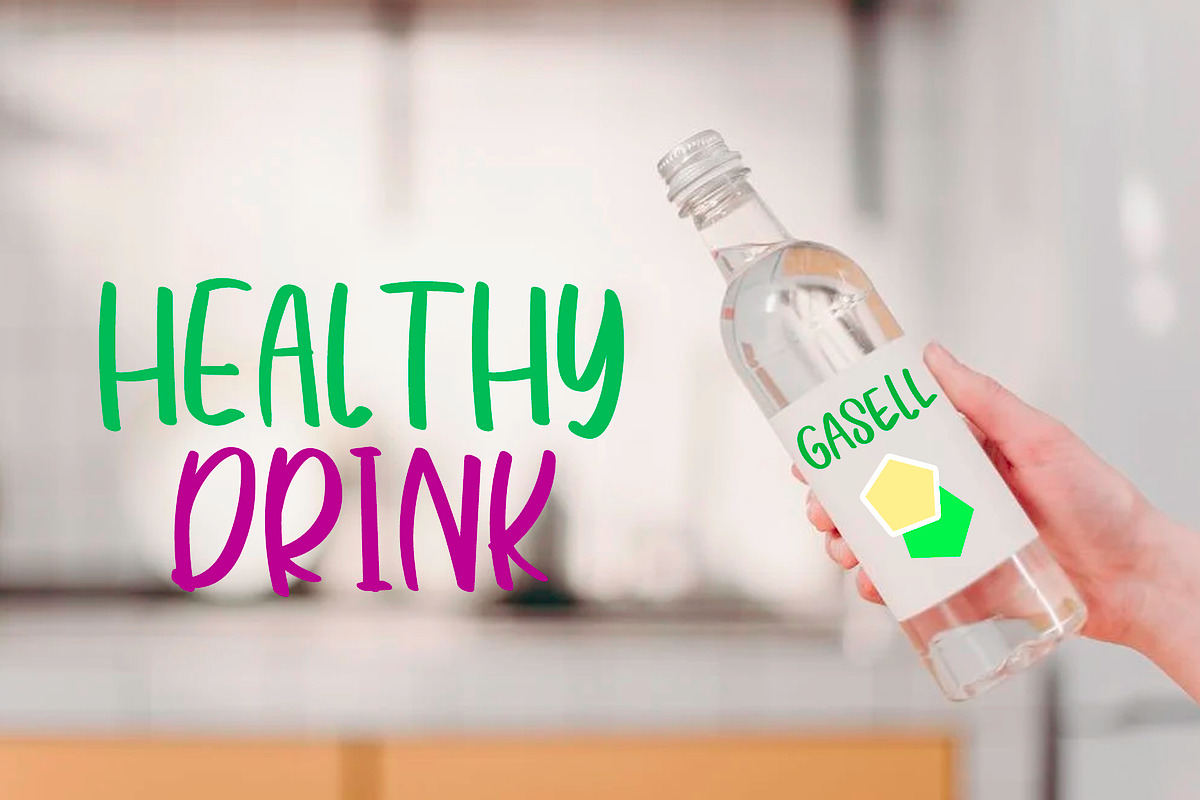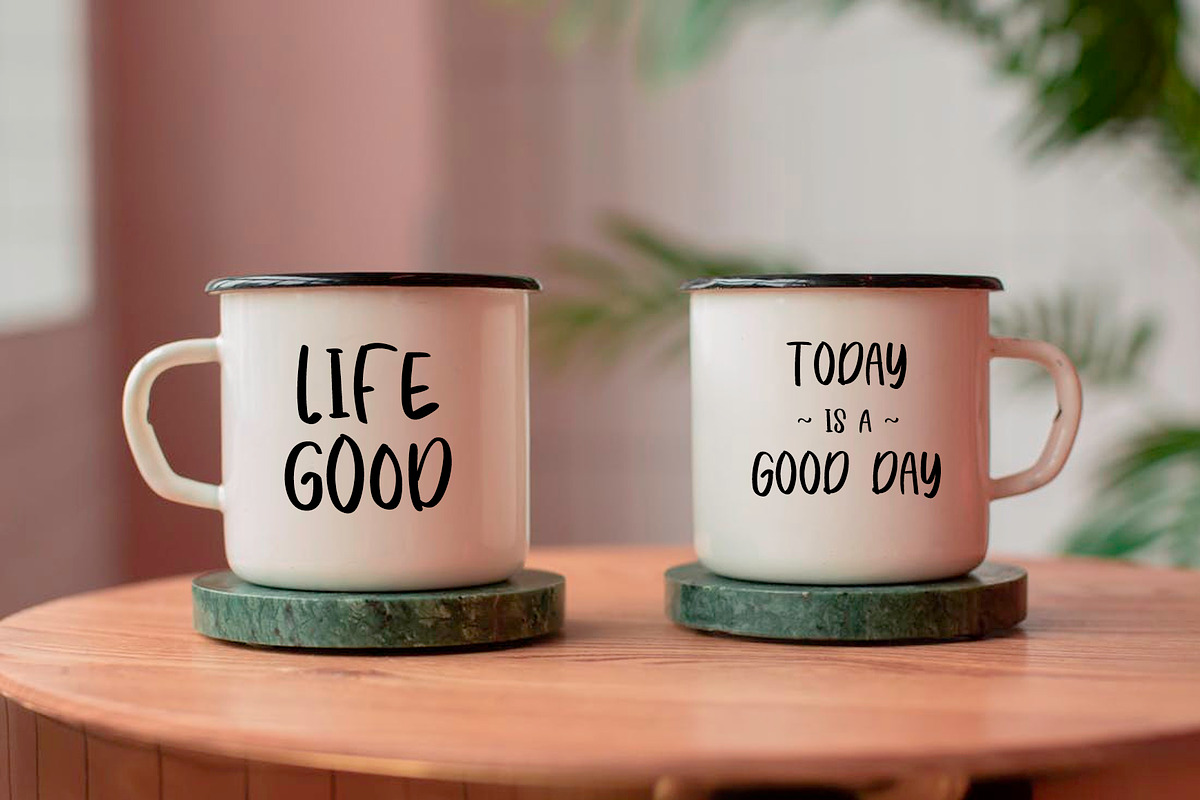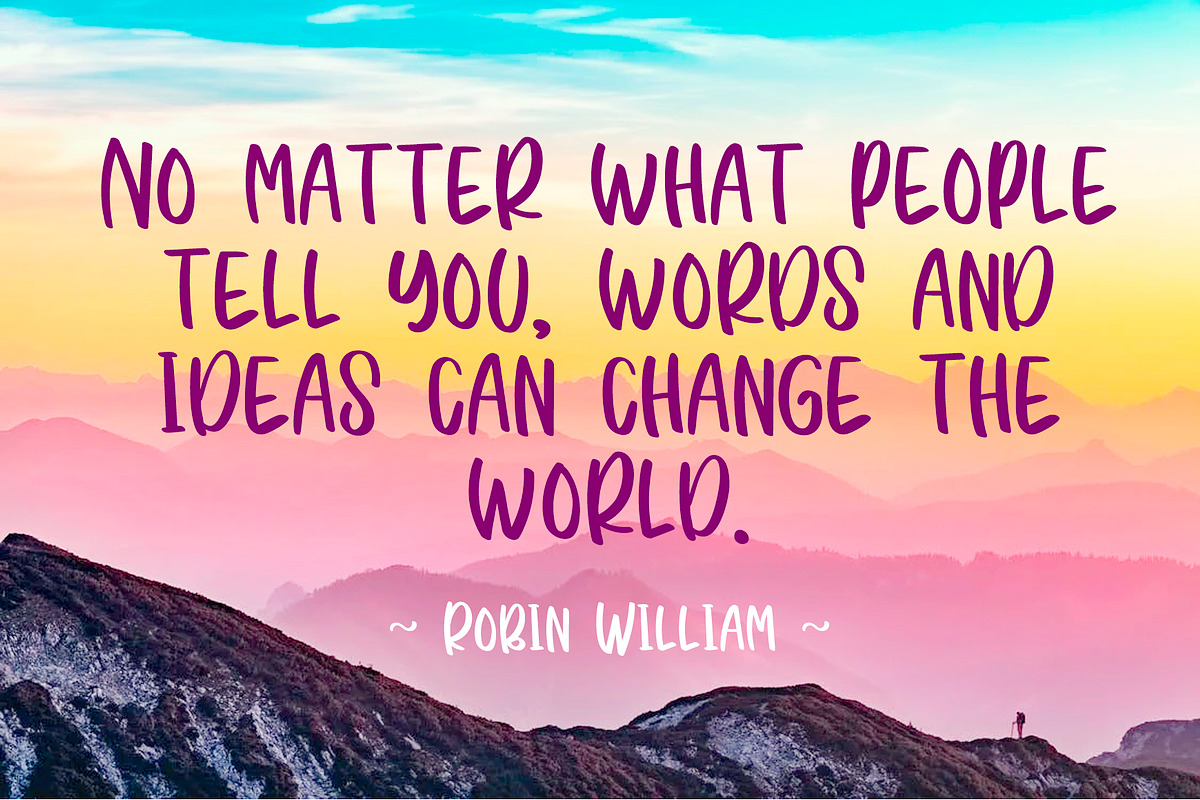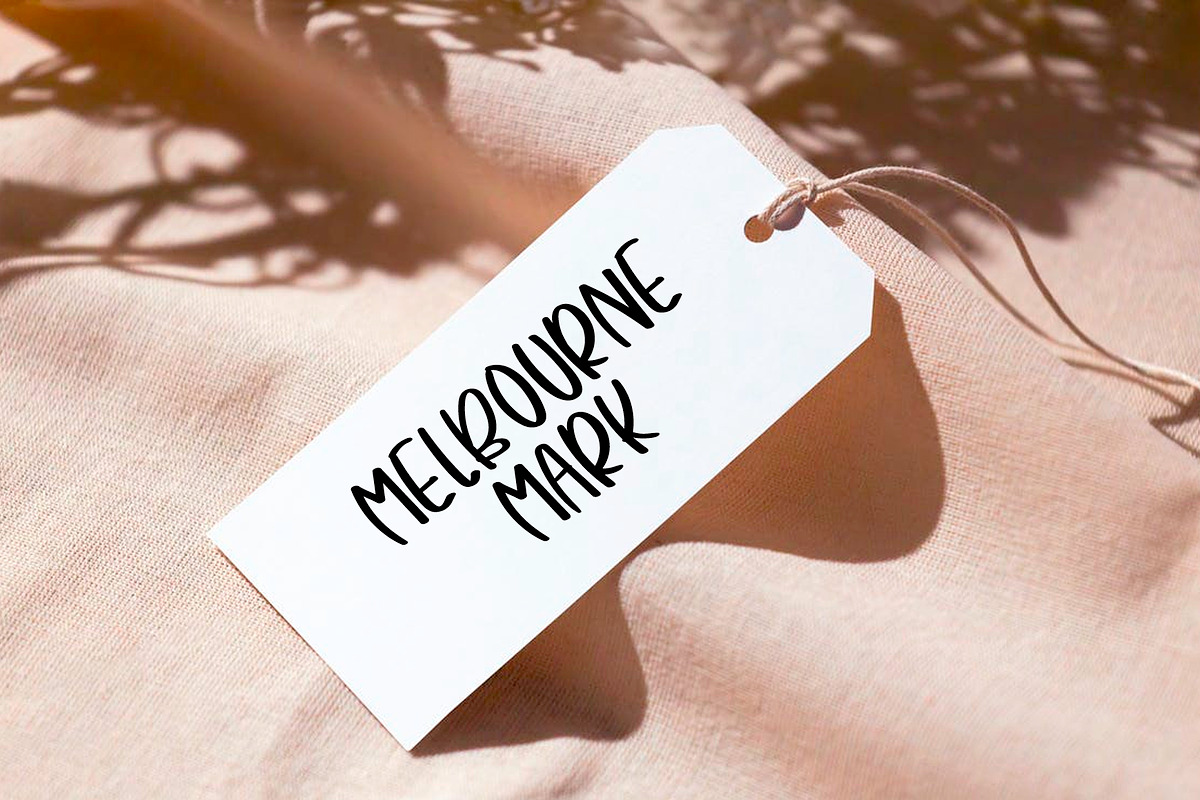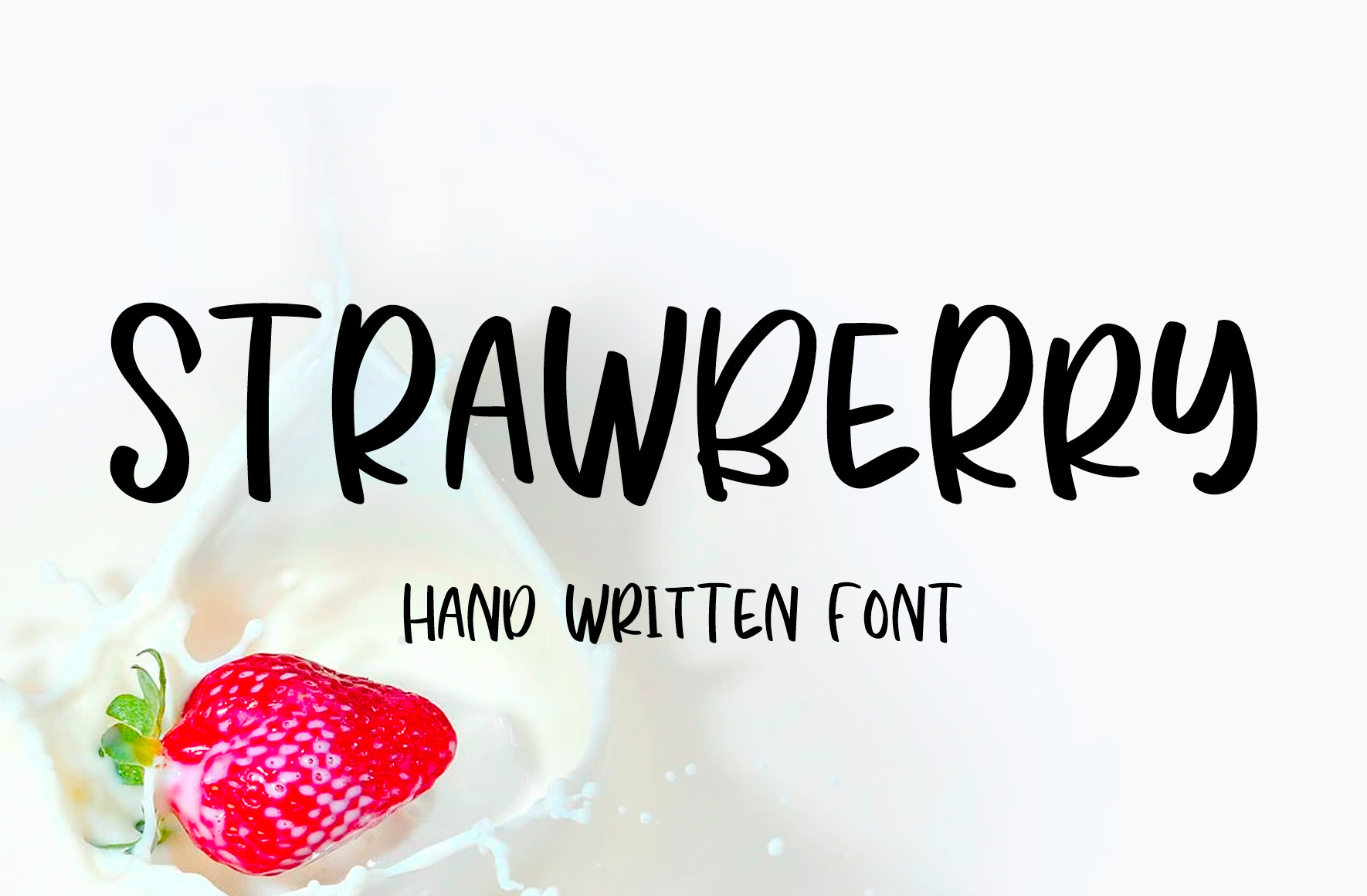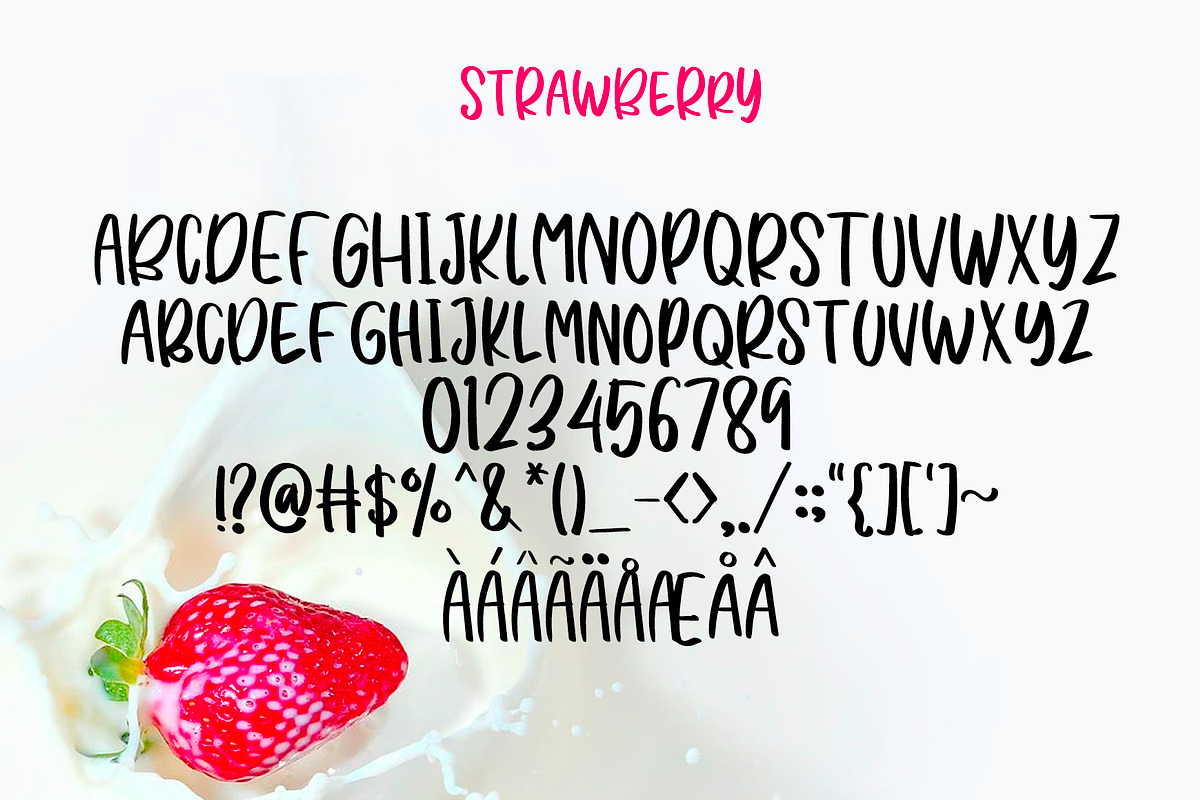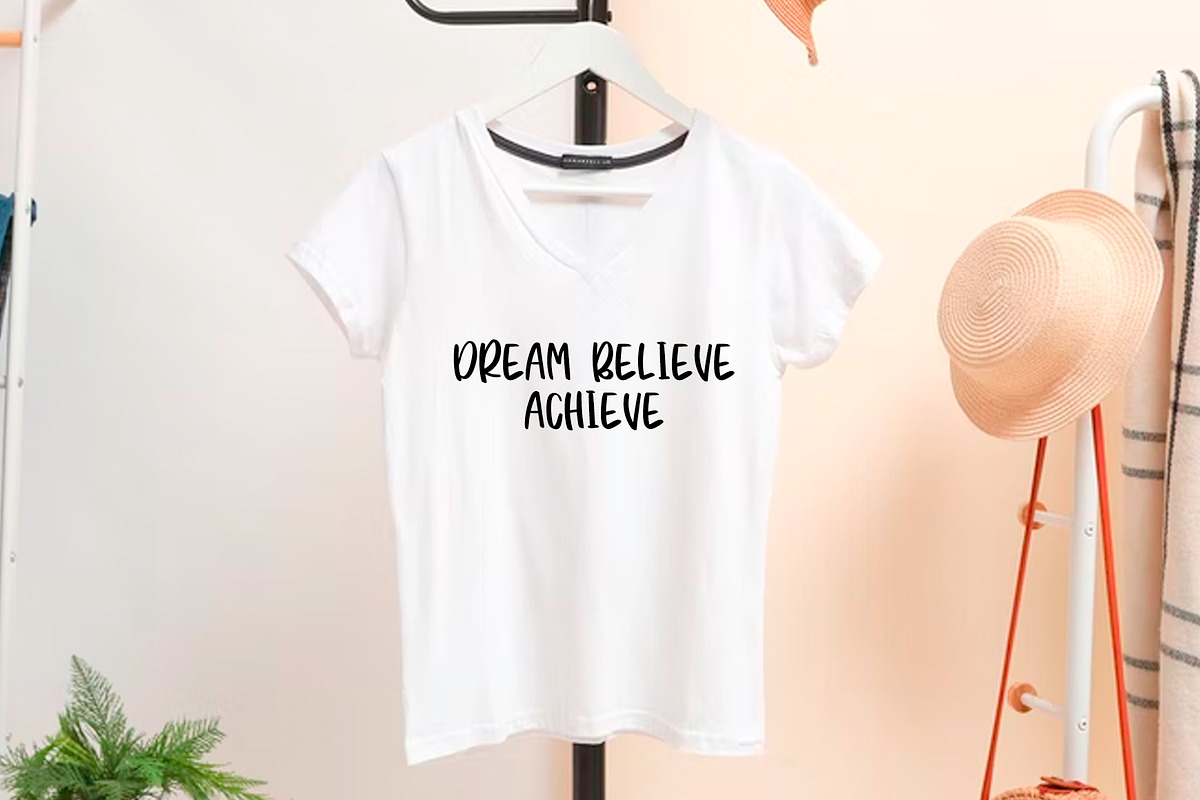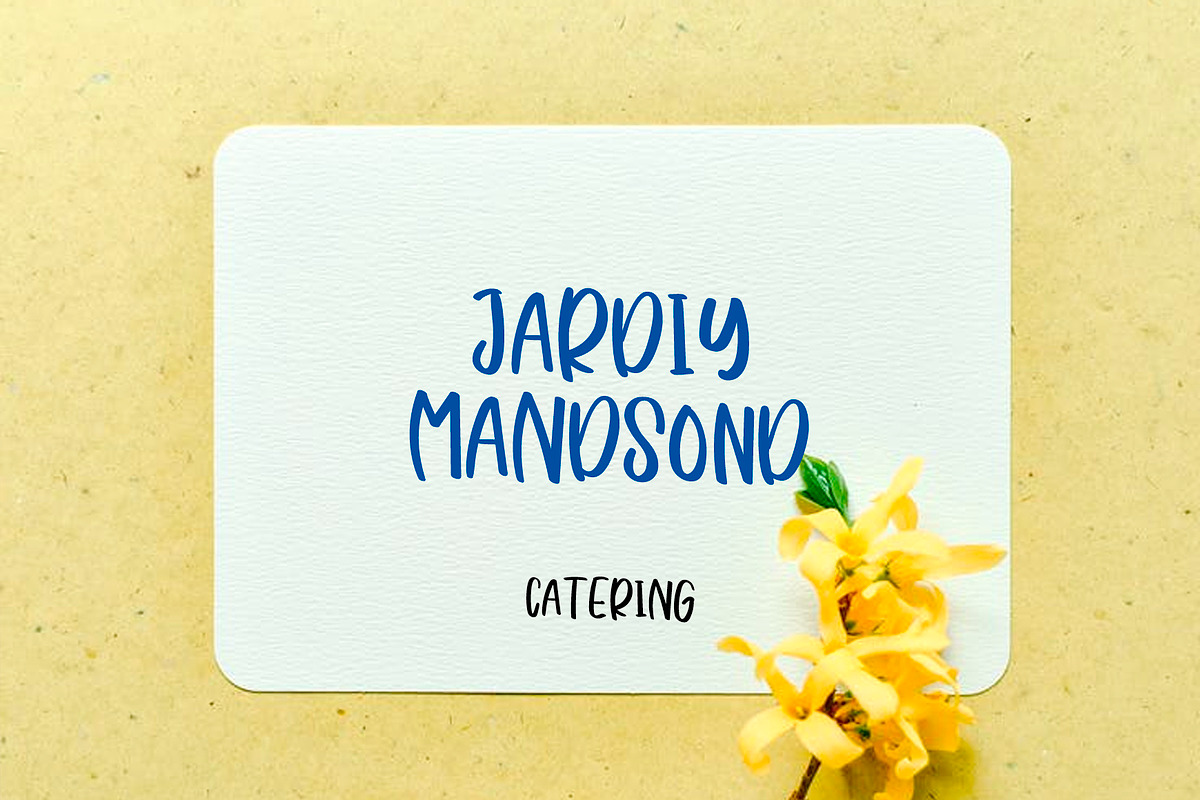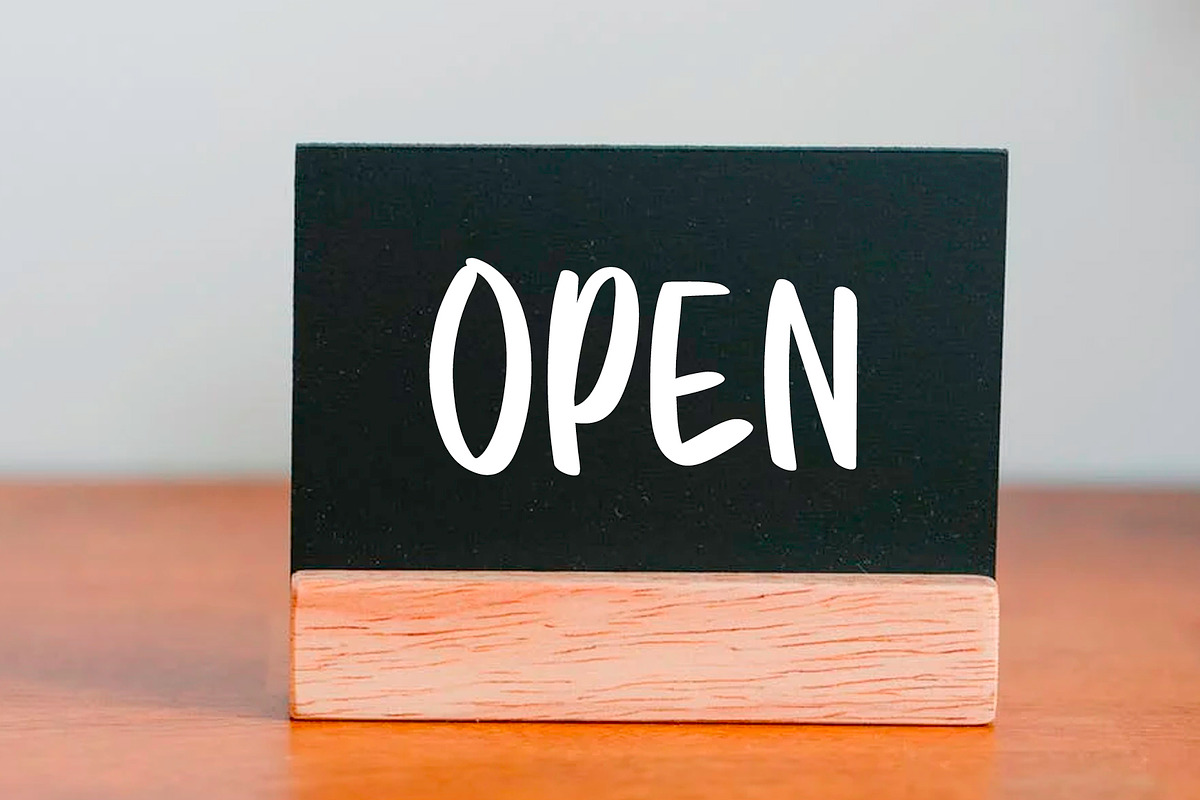
Strawberry - handwritten font
Strawberry is the perfect handwritten font to make your projects look handwritten! Strawberry is an uppercase font: one set of uppercase letters, and one set of uppercase are mapped to uppercase, so you can mix and match the lowercase between the two. Use this font to enhance your designs!